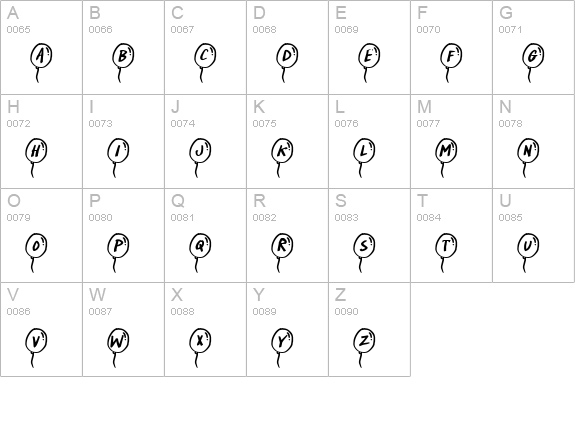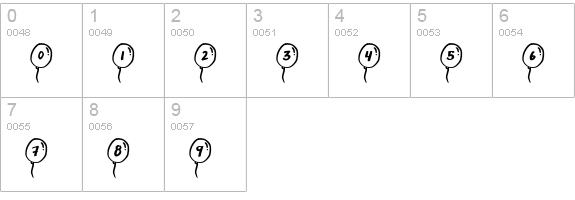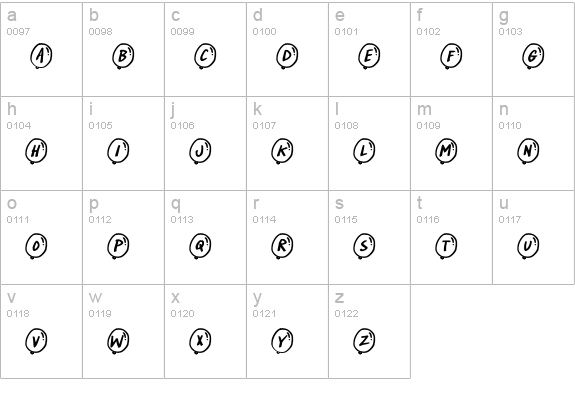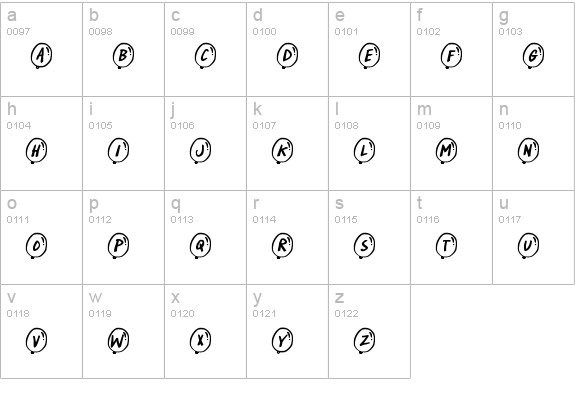
PartyBalloons Font Details
PartyBalloons font is a vibrant and playful typeface that will bring a touch of fun and celebration to any design project. With its whimsical balloon-like shapes and lively letterforms, this font is perfect for adding a festive atmosphere to party invitations, birthday cards, and event posters. The PartyBalloons font features a wide range of characters, including uppercase letters, lowercase letters, numbers, and punctuation marks. Each letter is carefully crafted to resemble colorful and inflated balloons, complete with curvy lines and round shapes. The font also includes special characters and ligatures, allowing for endless creative possibilities. One of the best things about PartyBalloons font is that it is free! Yes, you heard it right. This font is freely available to download at FontsMarket.com, a reputable online font marketplace. So, whether you are a professional designer or a DIY enthusiast, you can easily access this font and use it in your projects without any cost. So, why wait? Download PartyBalloons font today and let your creativity soar high. With its cheerful and lively design, this font will bring joy and excitement to your designs, making them stand out from the crowd. Whether you are designing for a birthday party, a wedding celebration, or any other festive occasion, PartyBalloons font is your go-to choice for adding a touch of whimsy and fun.